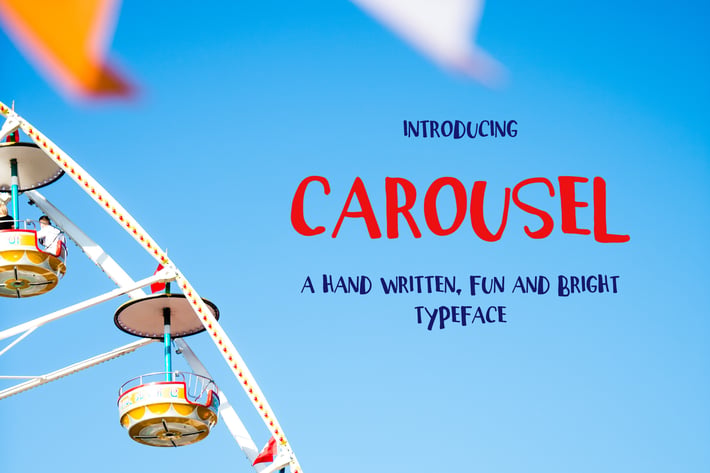
Carousel Typeface
Carousel - a hand written fun and bright typace.
Created with a bold marker and has a playful baseline.
This font has upper case, numerals and punctuation.